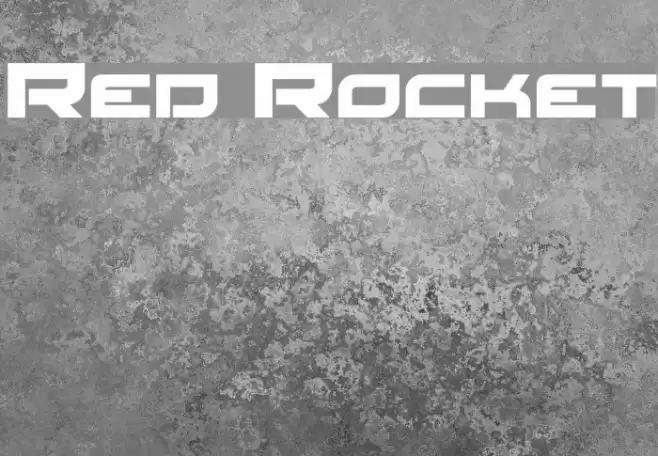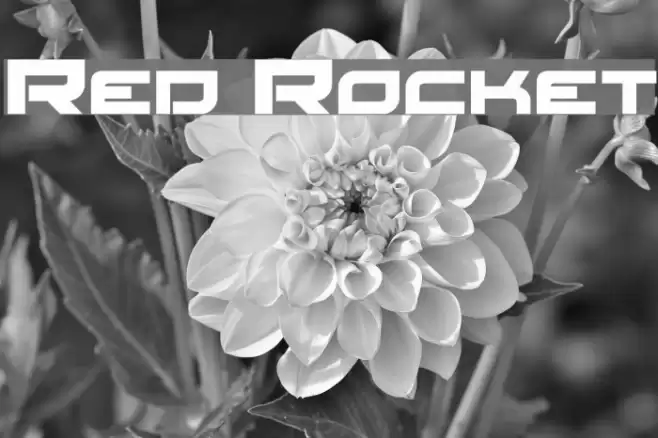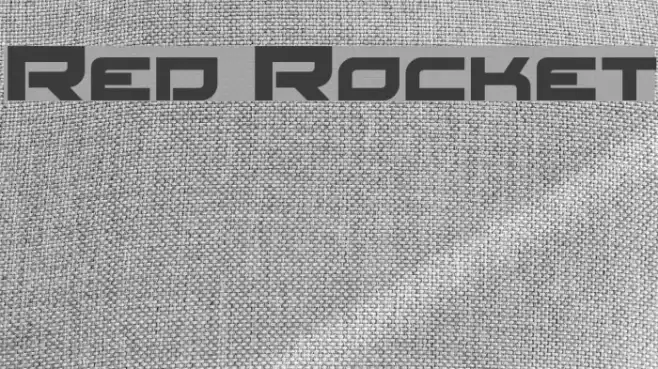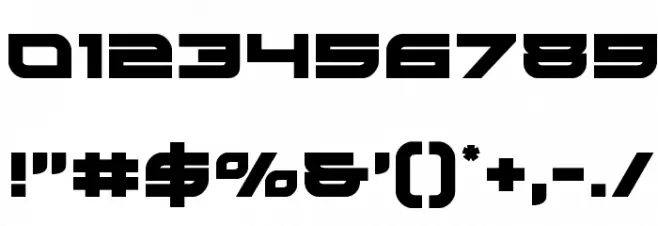
Red Rocket Font
Red Rocket Description
This font features a bold, futuristic design with a strong geometric structure. The characters are wide and blocky, giving a sense of stability and strength. The angular cuts and sharp edges add a dynamic and modern feel, making it ideal for projects that require a bold statement. The uniformity in the design ensures readability while maintaining a unique style. Its distinct appearance is suitable for technology-themed projects, branding, and advertising where a modern and impactful look is desired.
A bold, futuristic font with geometric and angular design from Uncategorized fonts.
- Proposed Projects: Ideal for technology branding, futuristic posters, video game titles, and modern advertising.
- Width: Expanded